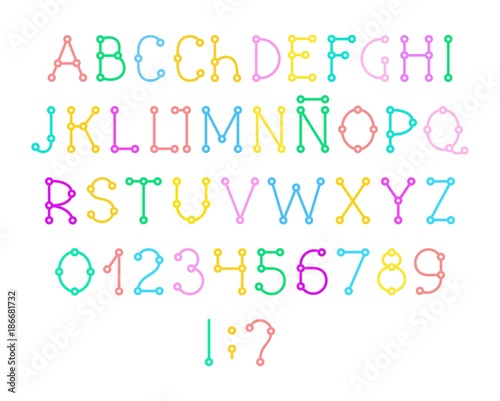
Spanish alphabet, font, Layout, color, vector. Capital letters and numbers Spanish alphabet. Vector font. Scheme. Connection. Colored letters on a white background.